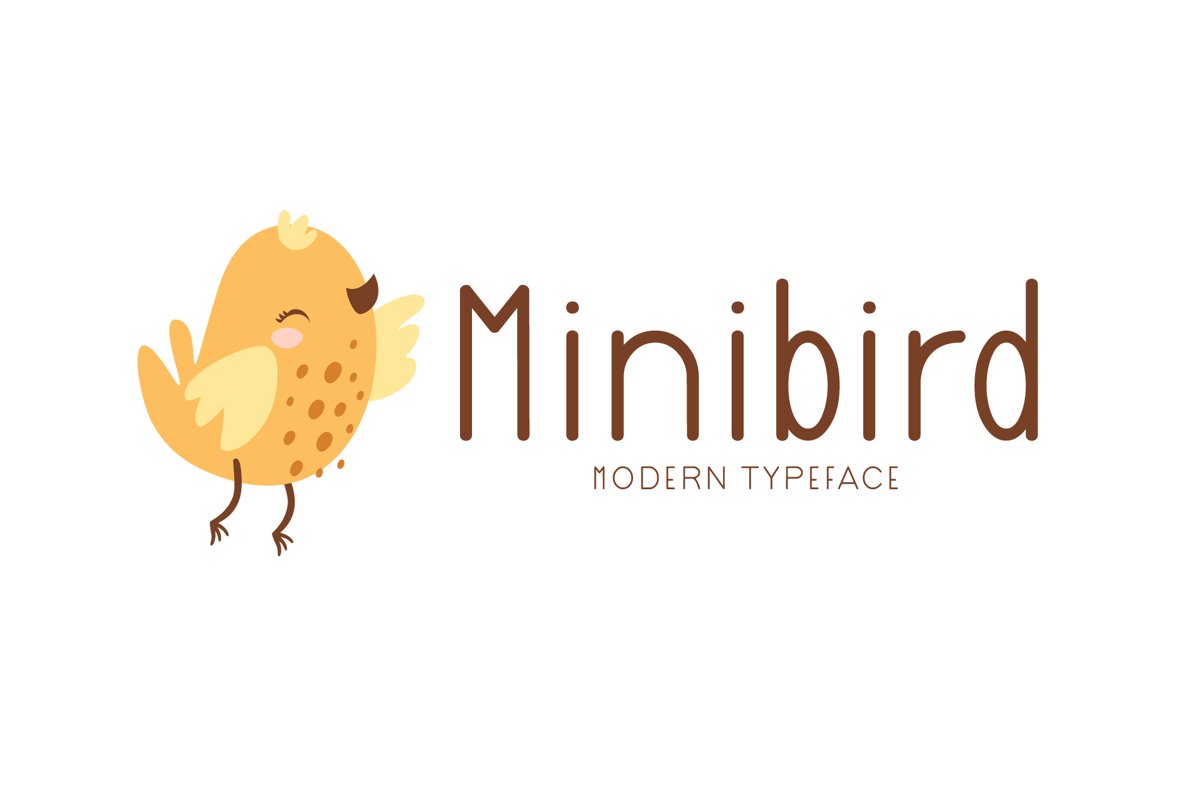
Introducing Minibird!
Minibird is a brand new modern font. Minibird is perfectly suited for stationery, logos, t-shirt, paper, print design, website header, photo frame, flyer, music cover, poster, image slider and much more.